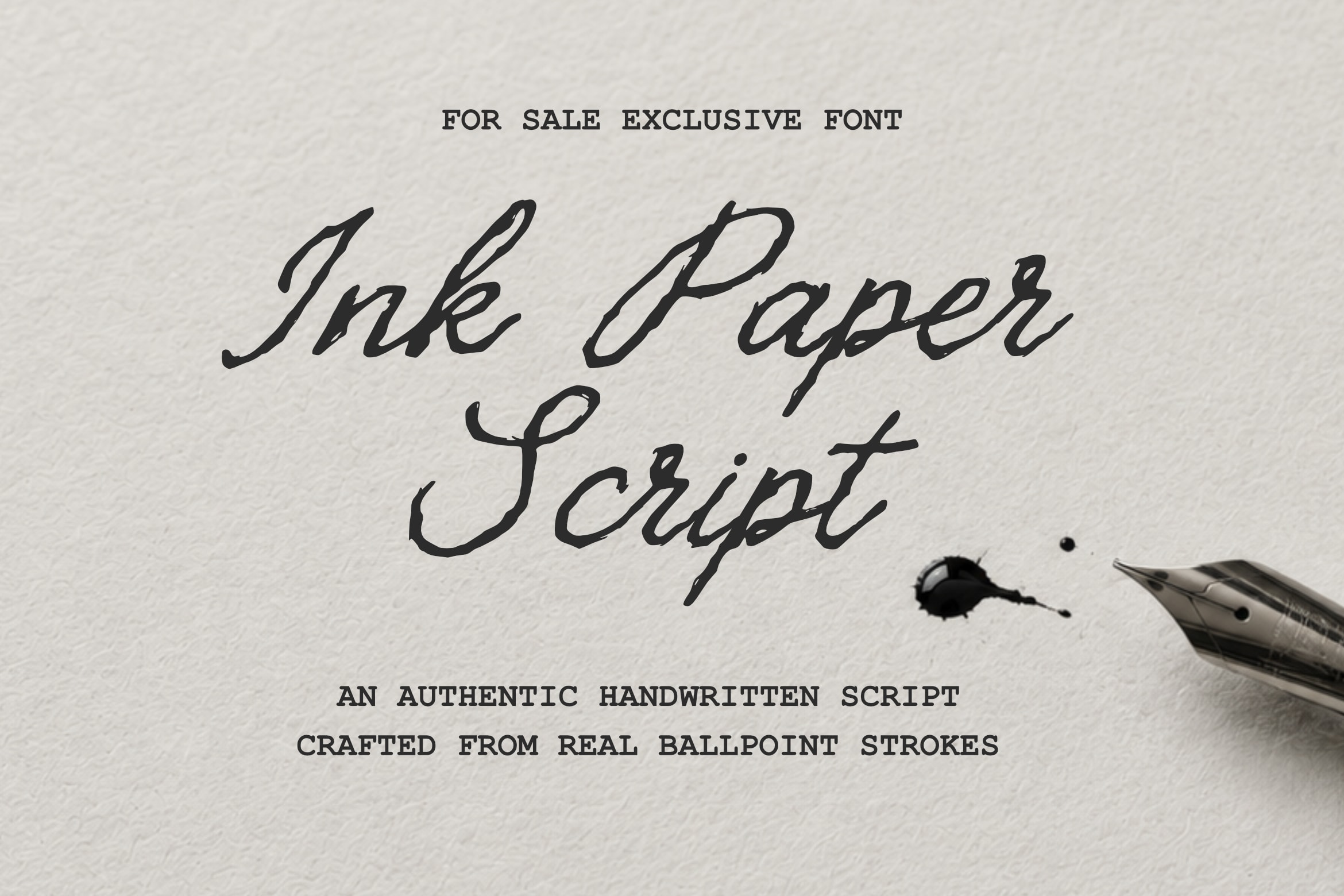
Perfect for branding, signatures, stationery, journals, social media graphics, product packaging, invitations, editorial projects, quotes, and creative marketing materials, Ink Paper Script brings a personal touch to any design. Its organic letterforms and naturally uneven details help create typography that feels approachable, handcrafted, and full of character rather than overly polished.
Alternate Characters
Ligatures & Stylistic Features
Multilingual Support